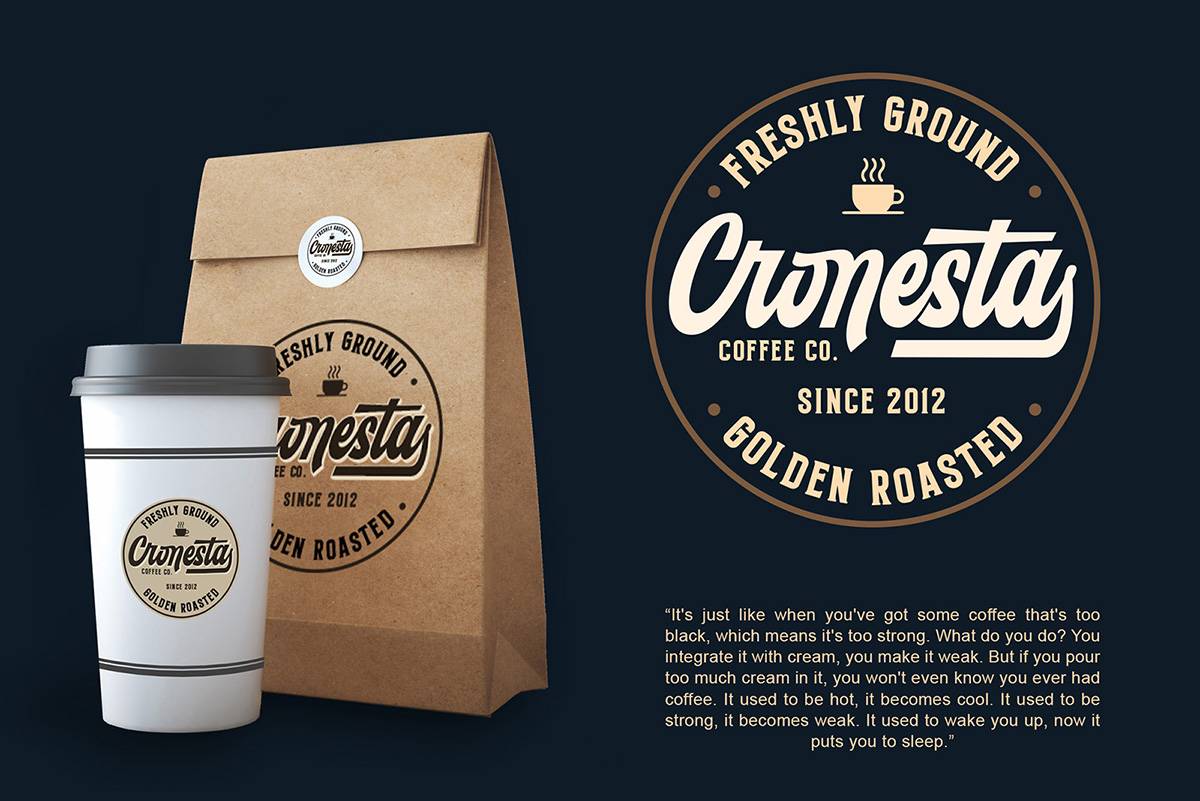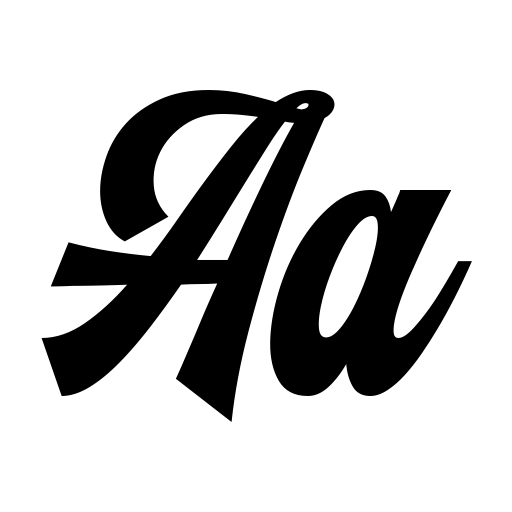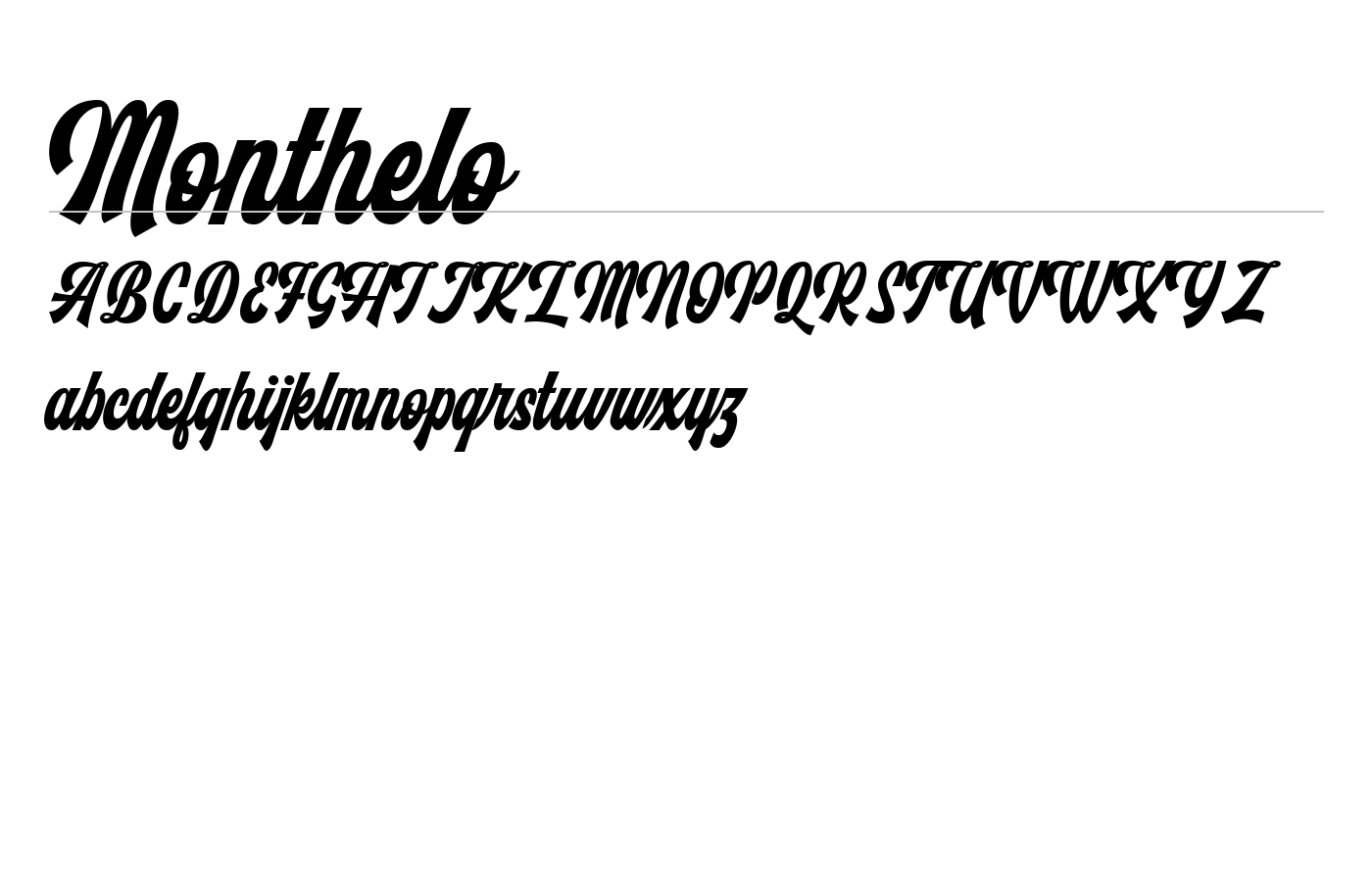
Monthelo is a bold and stylish script font with a slanted, cursive design that combines vintage charm with modern flair. Its thick strokes and smooth, flowing letterforms make it ideal for eye-catching headlines, logos, and branding that desire a confident and elegant personality. This font works beautifully in fashion, packaging, and editorial projects where a touch of classic sophistication is needed.
Monthelo Font
About Monthelo Font
| Font family | Monthelo Font |
| Release date | 2018-09-14 |
| Designer | Blankids Studio |